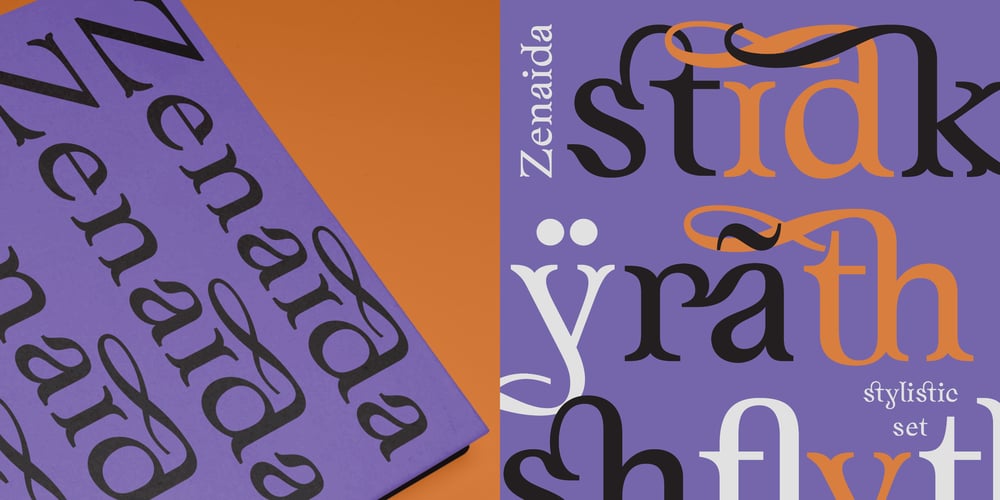
Zenaida Font Family was designed by Alfredo Marco Pradil and published by Hanken Design Co.. Zenaida contains 5 styles and family package options. Zenaida is a distinctive display serif font adorned with stylized serifs, evoking a floral essence. Its graceful, flowing ligatures and stylistic alternates add an organic touch to text. Featuring a range of styles including Regular, Medium, Bold, ExtraBold, and an additional semibold weight, Zenaida offers versatility across various design applications, providing a diverse set of options to infuse character and distinction into projects.